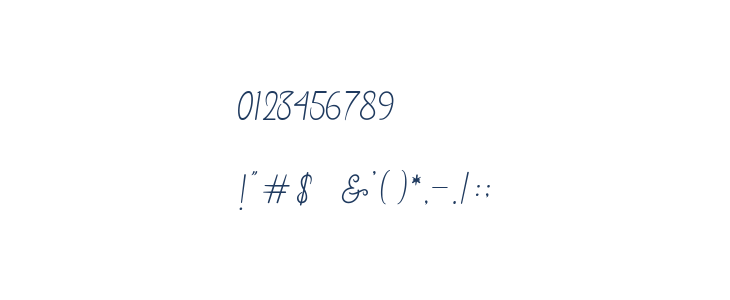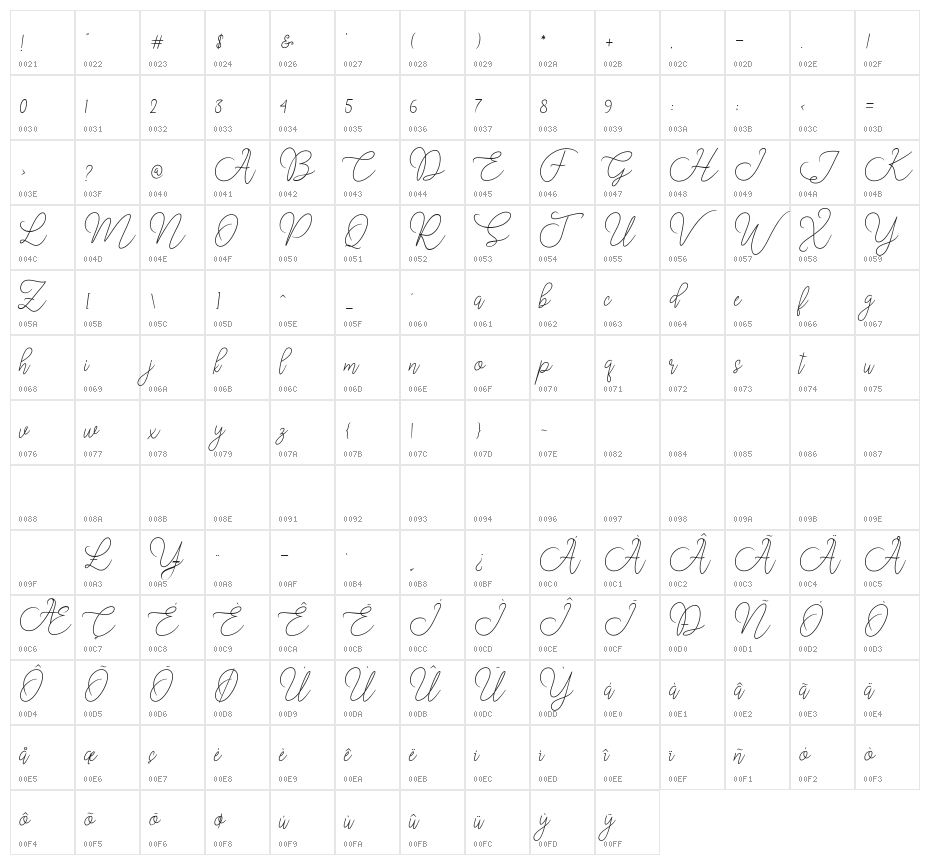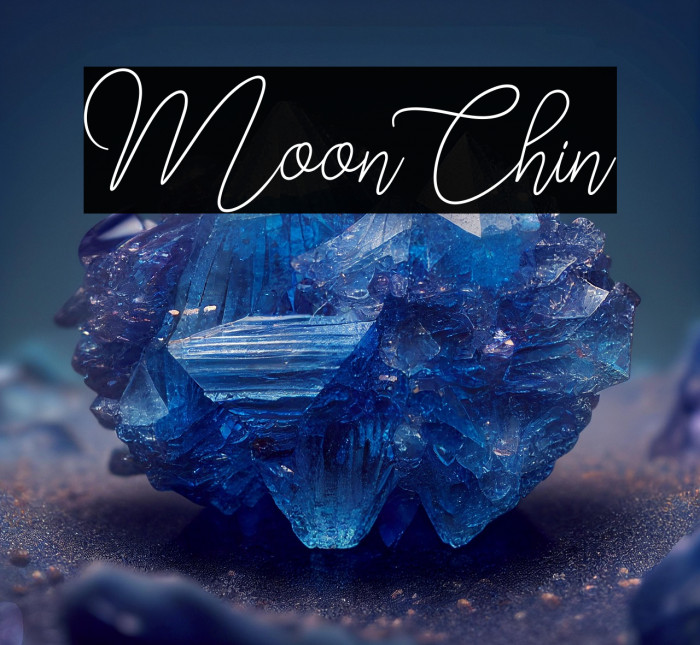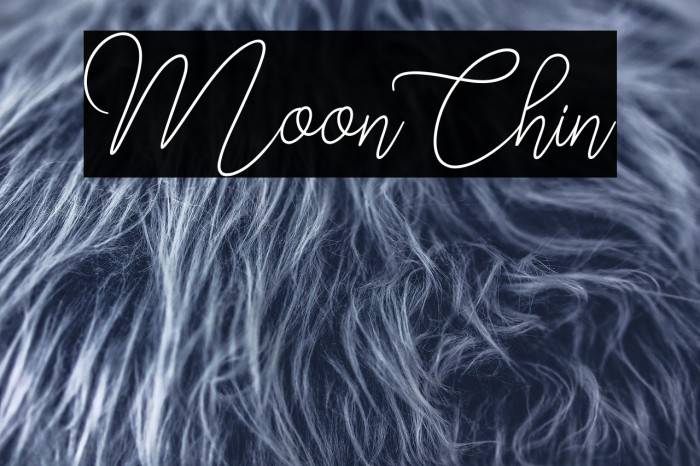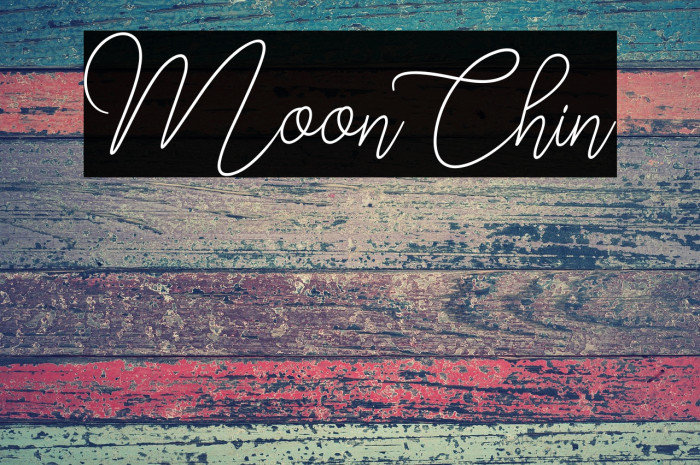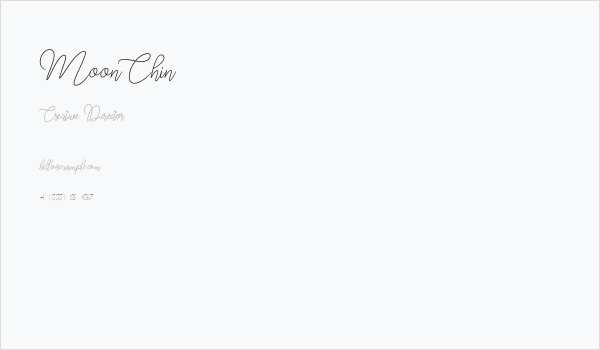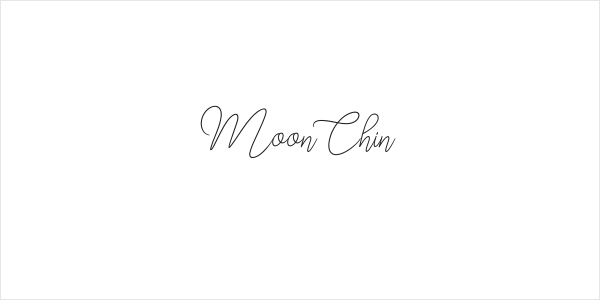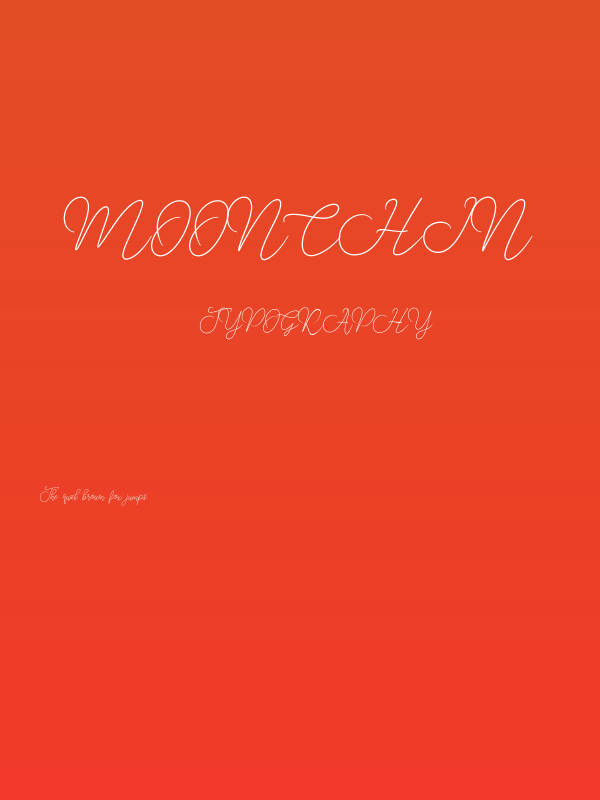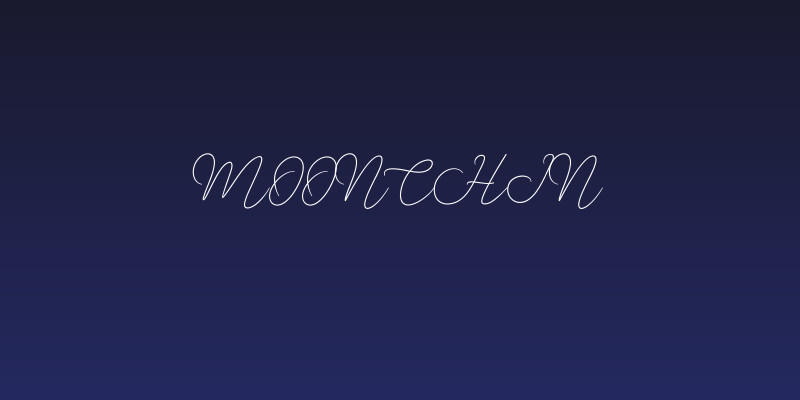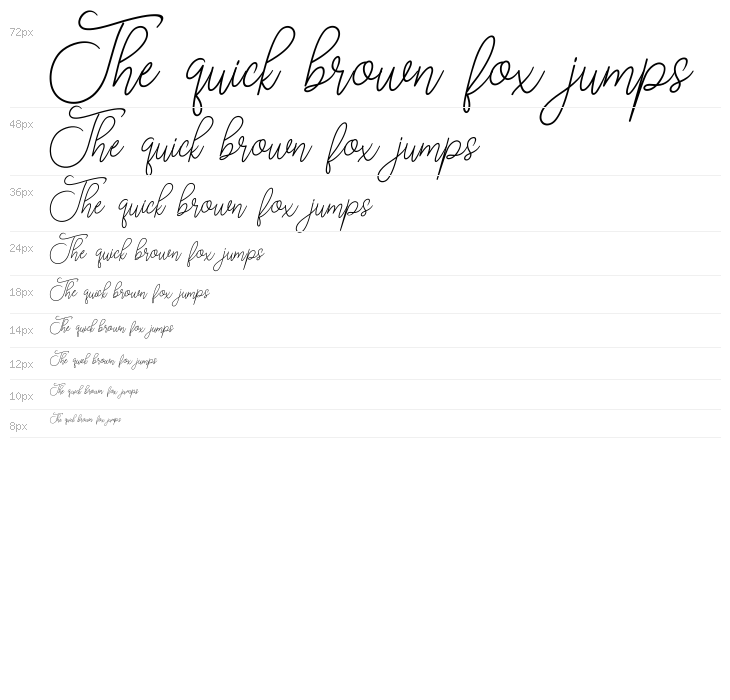
MoonChin Font
MoonChin Description
This elegant script font features fluid, interconnected strokes that create a sense of movement and grace. The uppercase letters are tall and slender, with delicate loops and swirls that add a touch of sophistication. The lowercase letters maintain a consistent flow, enhancing readability while retaining an artistic flair. Numbers and special characters are designed with the same attention to detail, ensuring a cohesive look across all text. This font's thin lines and smooth curves make it ideal for projects that require a touch of elegance and style.